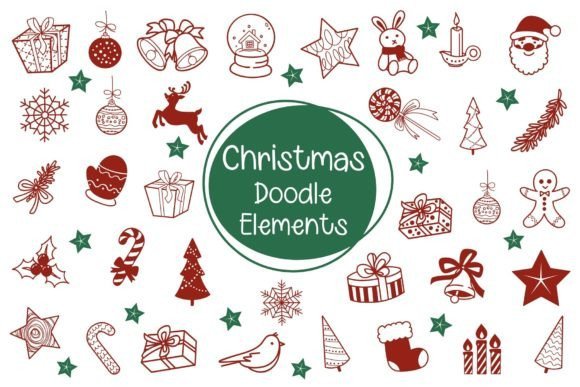
Introduction to Christmas Doodle Elements Font
Christmas Doodle Elements is a fun and festive dingbat font filled with Christmas-themed symbols.
You can find holiday icons like Christmas trees, snowflakes, ornaments, and presents in this font It’s perfect for adding a touch of holiday cheer to your designs and decorations.
Key Features of Christmas Doodle Elements Font
Why Choose Christmas Doodle Elements Font?
Christmas Doodle Elements Font offers exceptional quality and versatility, making it a valuable addition to your design toolkit. Whether you’re creating for personal projects or commercial use, Christmas Doodle Elements Font delivers professional results.